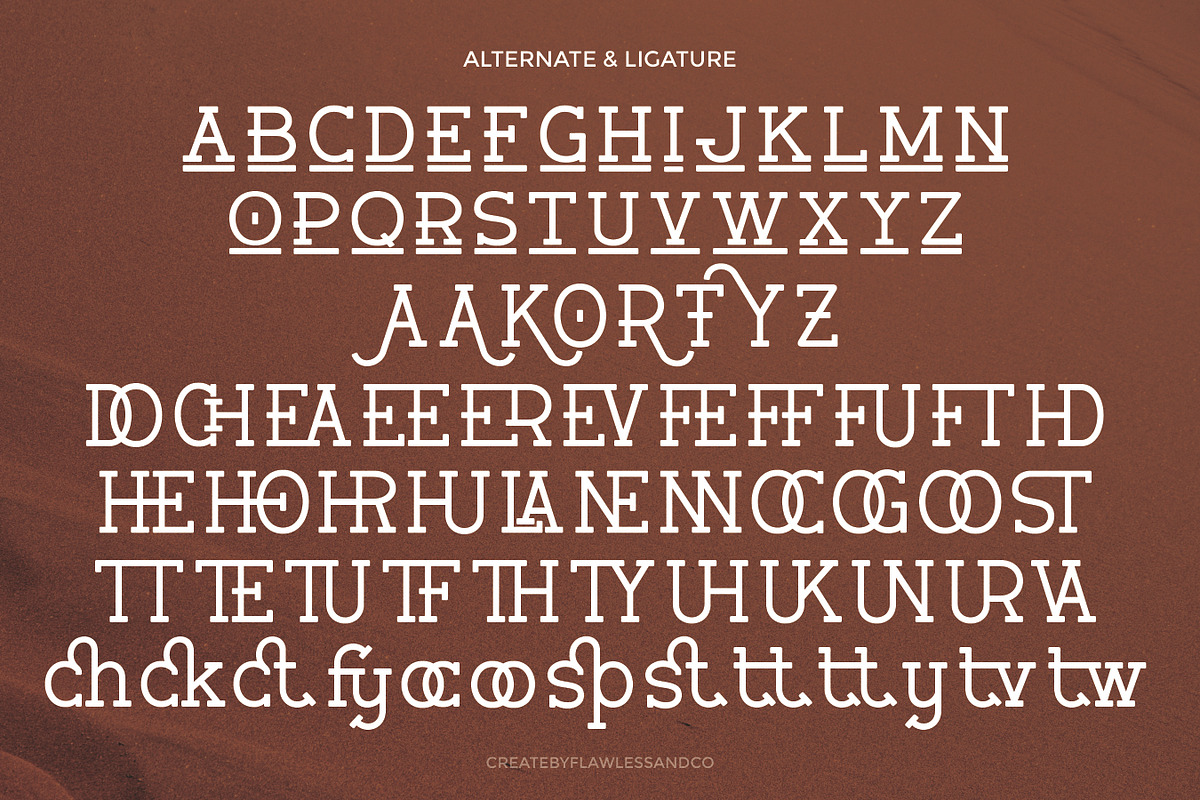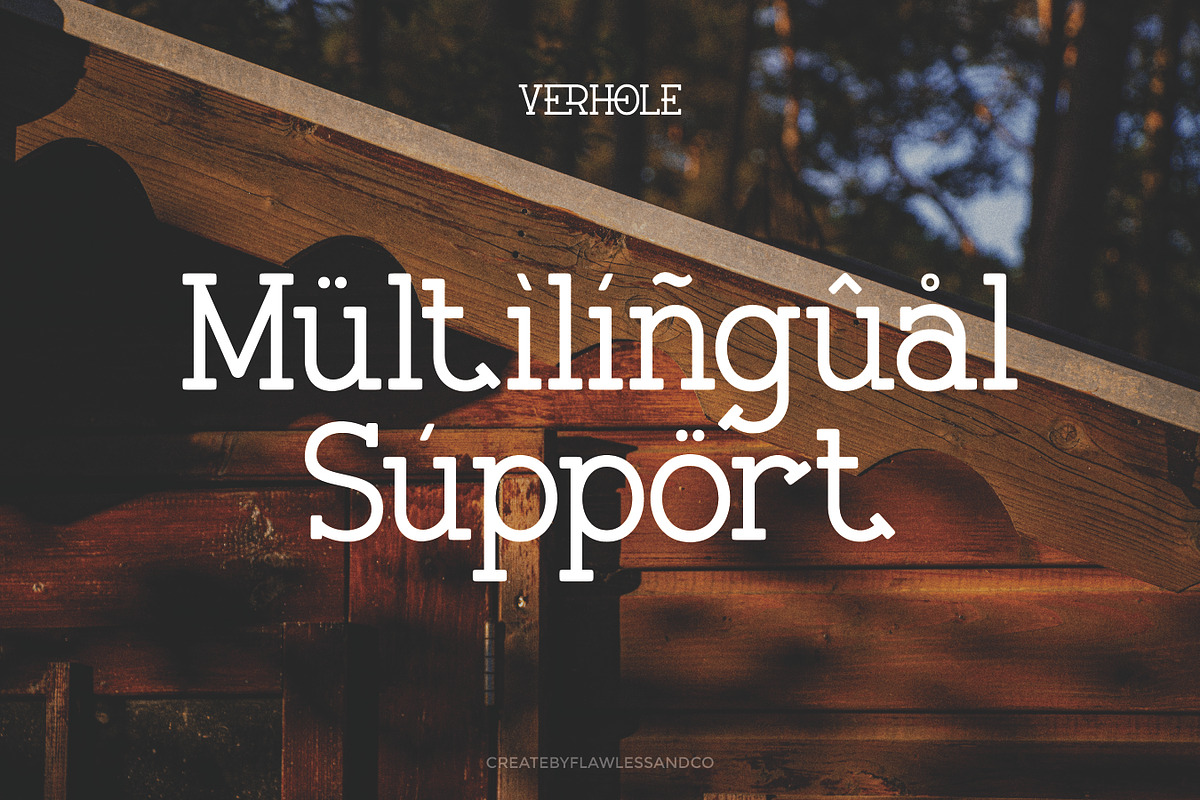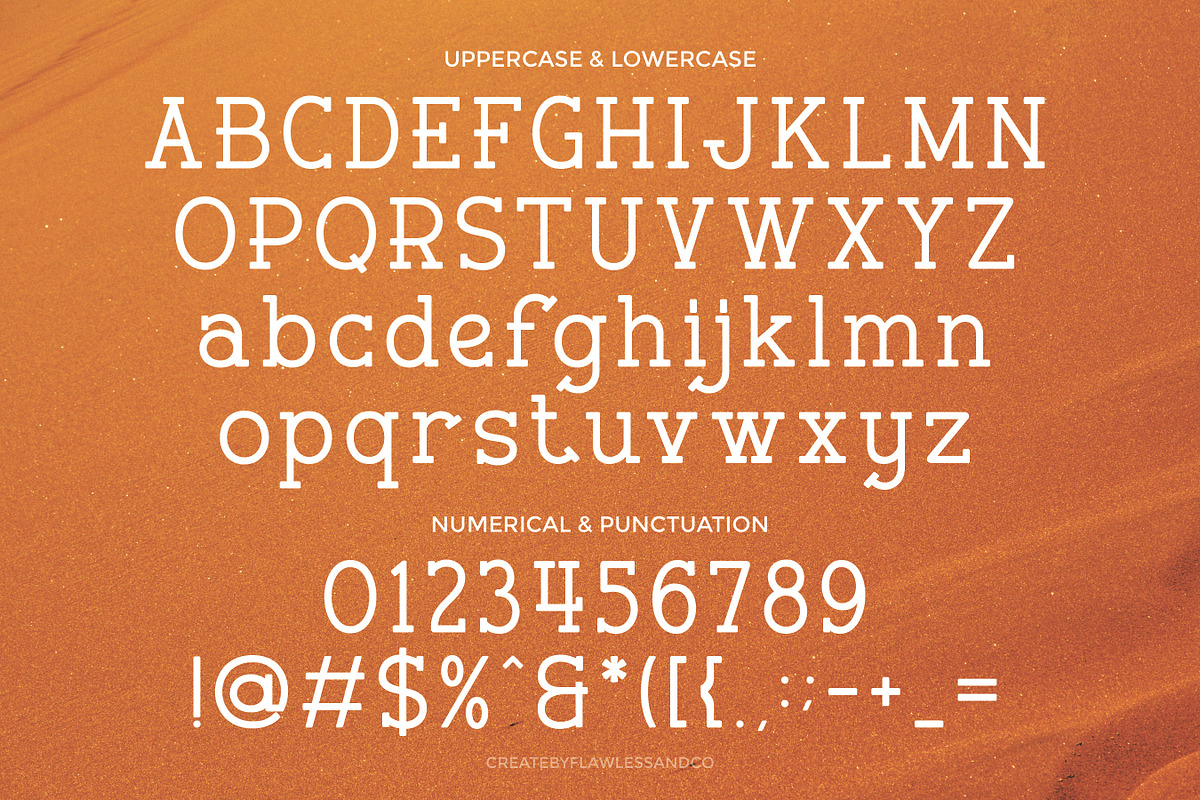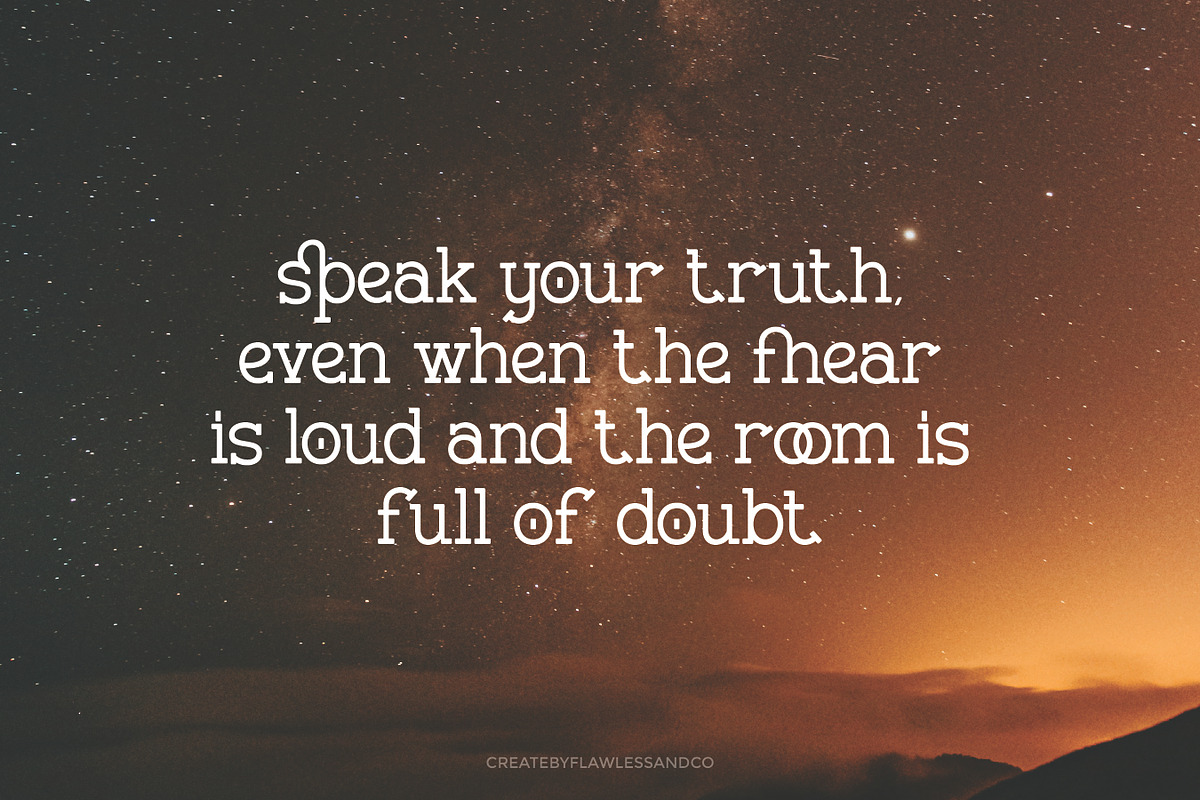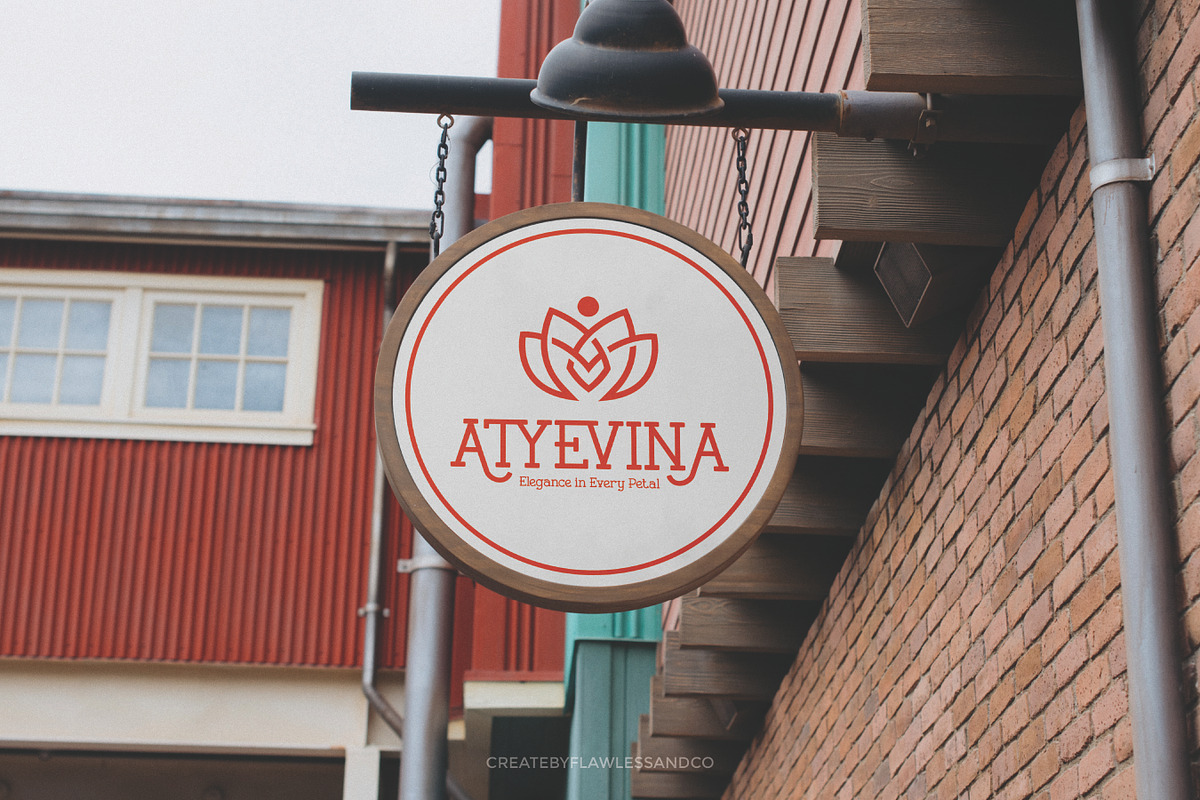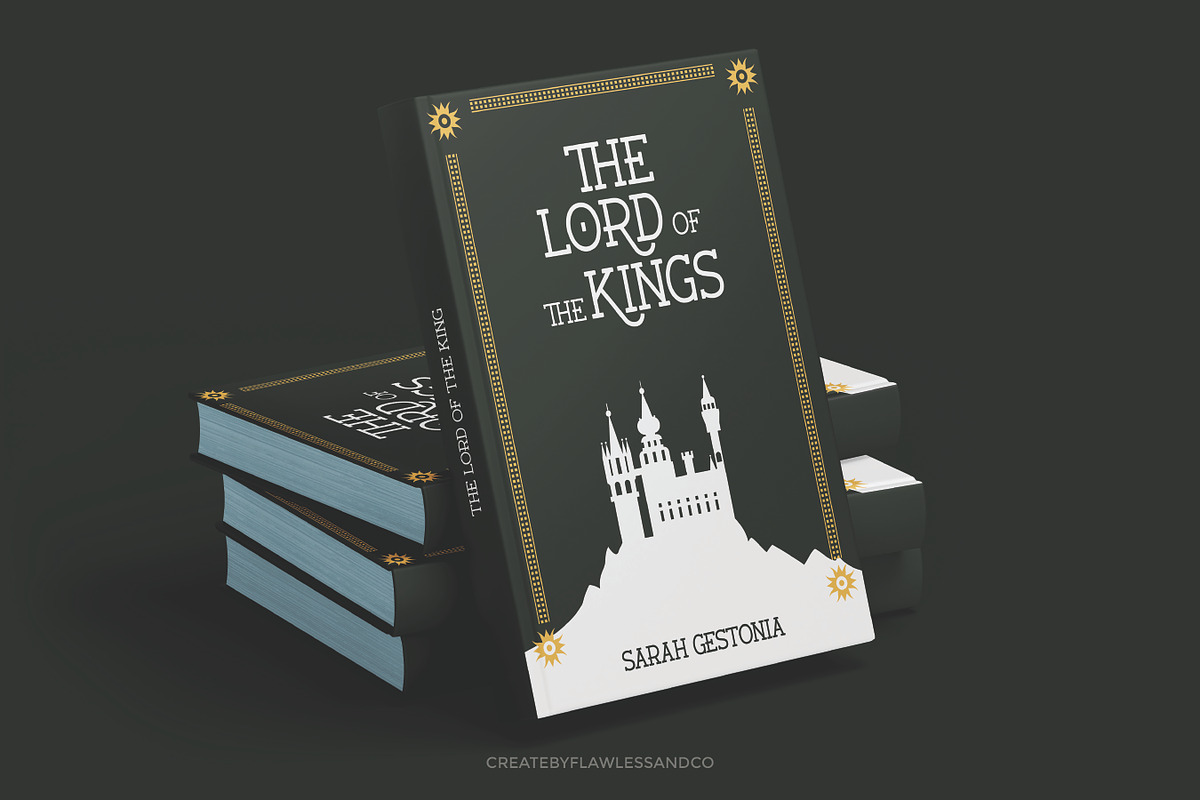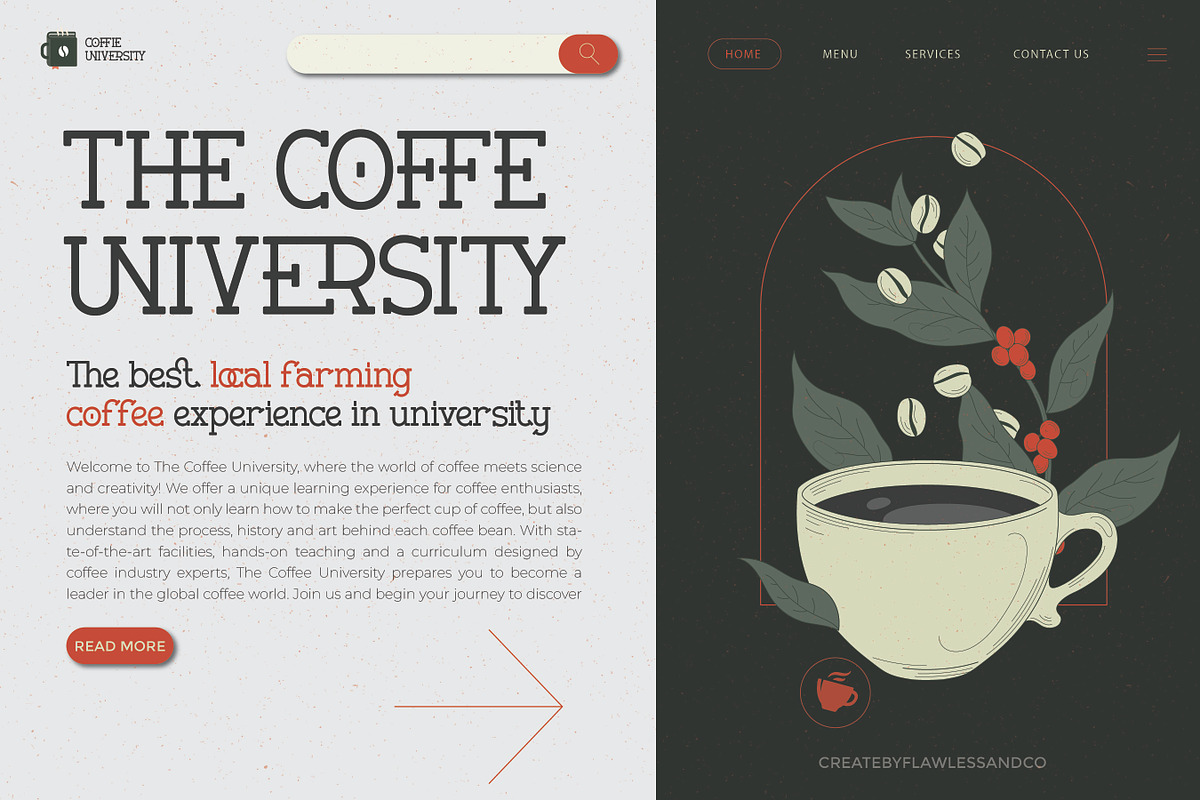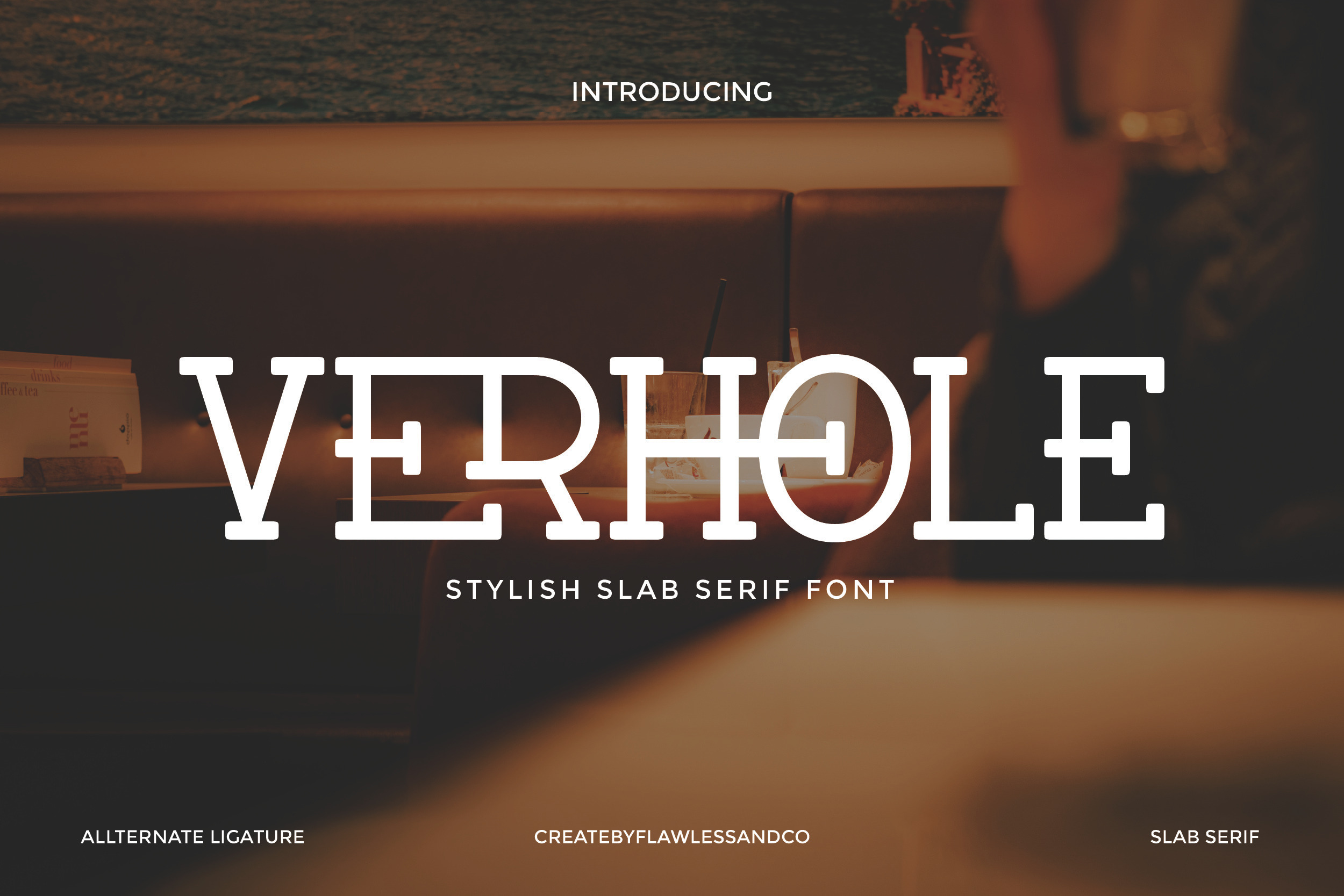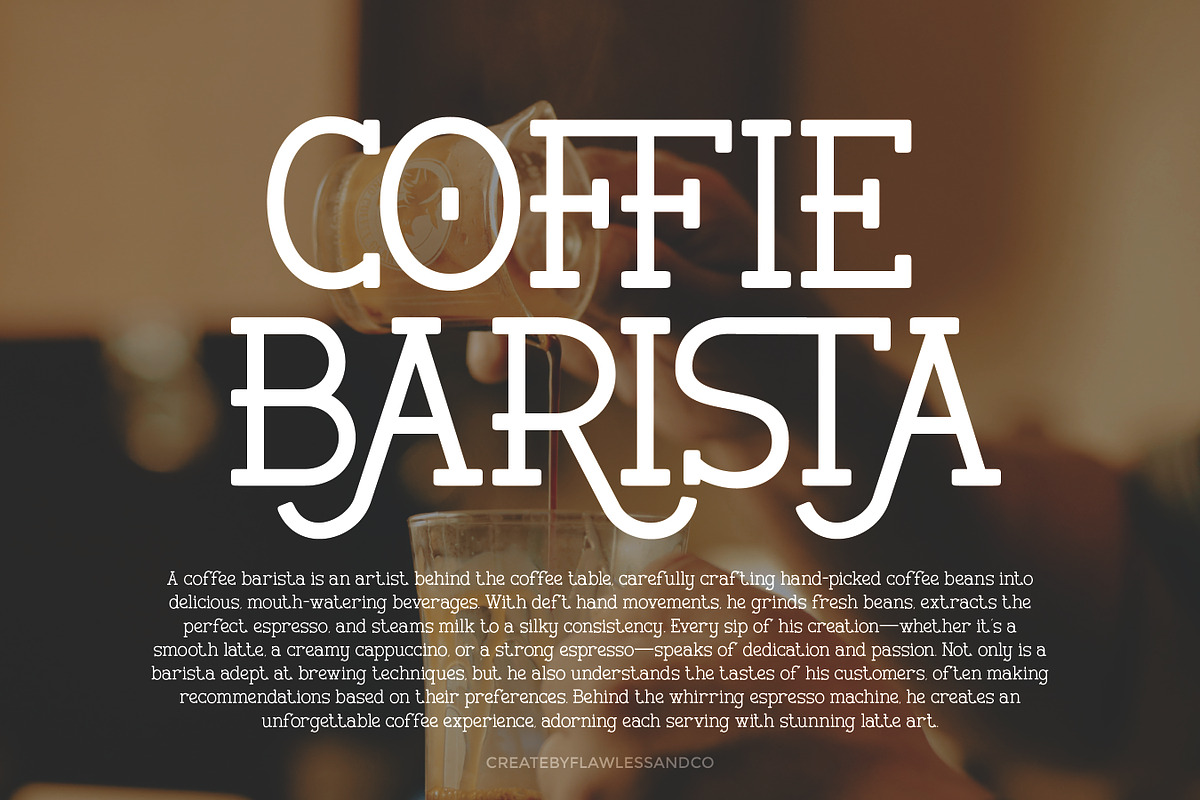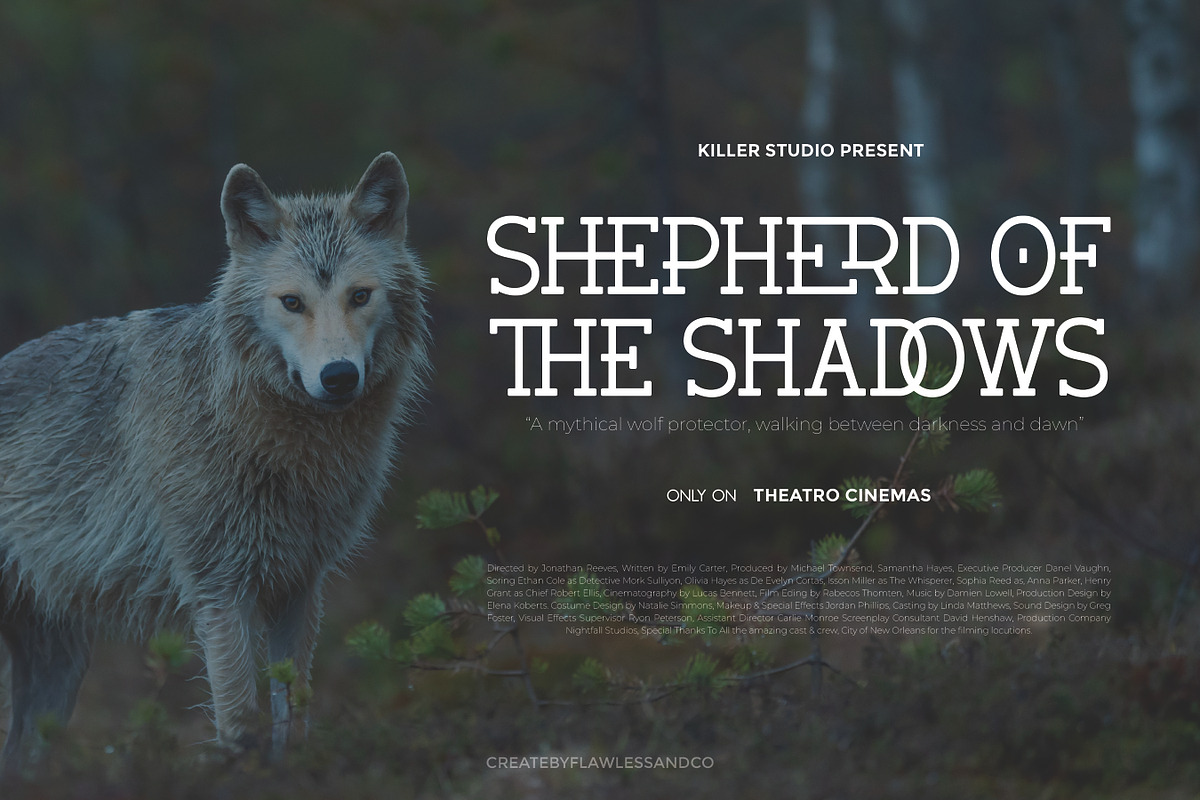
Verhole - Serif Slab Font
Verhole – Stylish Slab Serif Font
Verhole is a bold and refined slab serif font that merges modern design with classic charm. Characterized by strong verticals, squared serifs, and smooth curves, Verhole offers a unique typographic voice that is both stylish and confident. Perfectly suited for branding projects, logo designs, editorial layouts, posters, and signage, Verhole stands out with its distinctive blend of geometry and elegance. Each character is designed with precision and a creative flair that adds personality to your compositions without compromising readability. Verhole includes stylish ligatures and alternate characters that allow you to experiment and create typographic variation for more expressive results.
- Uppercase & Lowercase Letters
Whether you're designing for a coffee shop, a fashion brand, or a lifestyle magazine, Verhole gives your typography a bold, sophisticated edge that’s impossible to ignore.
Who Should Use Verhole?
Verhole is the perfect choice for designers, creatives, and brand builders who seek to combine bold elegance with timeless structure. With its stylish slab serif form, Verhole brings a modern yet classic touch to a variety of design projects—adding strength, clarity, and character in all the right places. It’s ideal for:
- Editorial and magazine layouts
- Fashion and lifestyle branding
- Packaging and label design
- Logo and identity systems
- High-impact posters and ads
If your project needs a font that blends sophistication with confidence — Verhole is the refined slab serif you’ve been looking for.
A Must-Have Font for Brand and Logo Creators
Verhole is an essential tool for designers who craft unforgettable brand identities. With its bold slab serif structure and stylish character, it delivers instant visual impact—perfect for logos, brand marks, packaging, and standout headlines. Whether you're building a luxury brand or a bold creative project, Verhole gives your work a unique, memorable edge.
Why Choose Verhole for Brand and Logo Projects?
Verhole combines bold slab serif structure with refined styling, making it the perfect choice for branding that demands presence and personality. Its strong letterforms communicate confidence and clarity, while unique ligatures and alternates add a creative twist—allowing your brand to stand out with both structure and soul. Whether you're creating a modern boutique logo or a timeless visual identity, Verhole brings style, strength, and sophistication to every project.